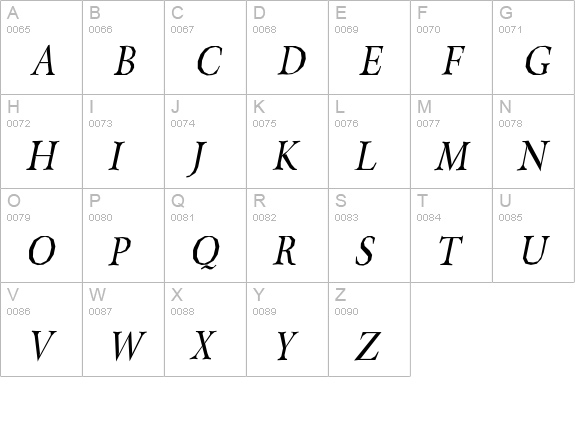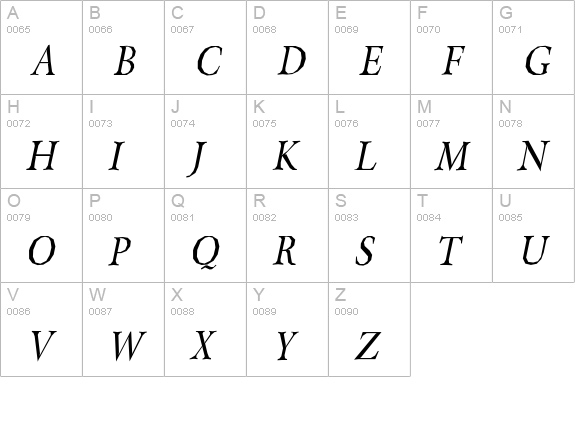
Berylium Italic is a distinctive, italic variant in the Berylium typeface family \xE2\x80\x94 well suited to design and typography projects.
Berylium Italic font is a sleek and modern typeface that exudes sophistication and elegance. Its unique Italic style adds a touch of flair to any design project, making it perfect for a wide range of applications from branding to editorial design. The smooth curves and clean lines of Berylium Italic font make it a versatile choice for both digital and print projects. What's even better is that Berylium Italic font is available for free download at FontsMarket.com! This means you can easily access this stylish font to elevate your designs without any cost. Don't miss out on this fantastic opportunity to enhance your projects with the stunning Berylium Italic font. Download it now and start creating beautiful designs with ease!